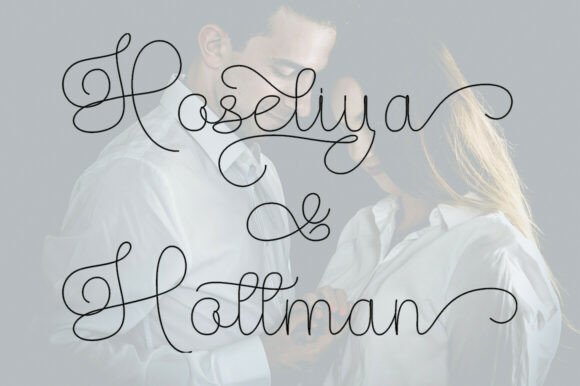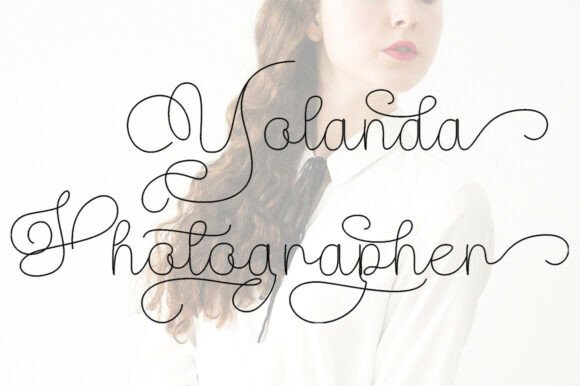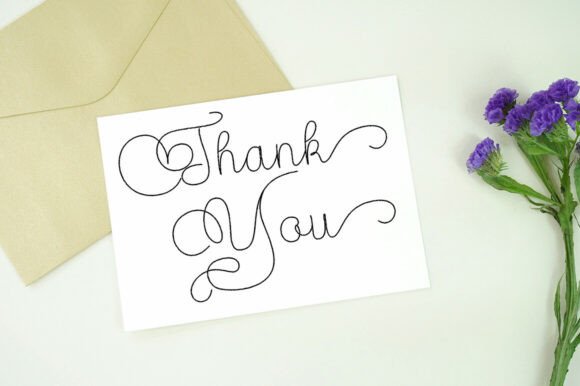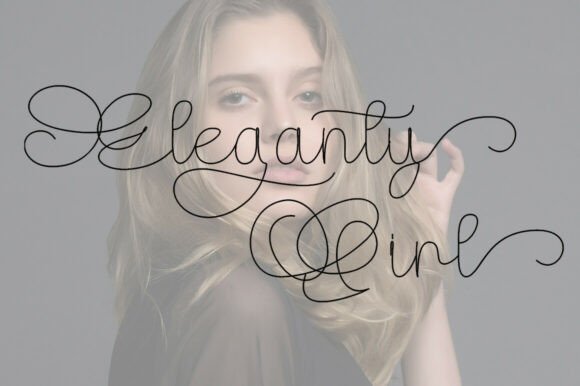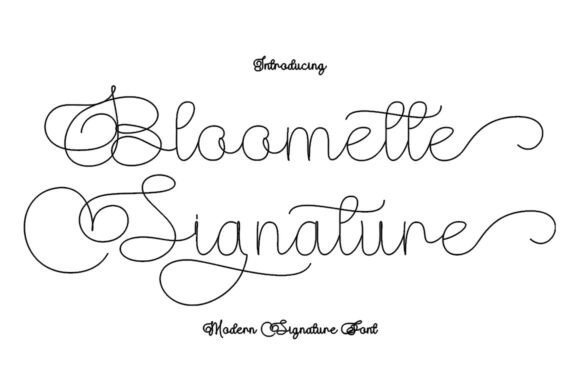
The Art of Handwritten Perfection: Introducing Bloomette Signature Font
There’s something magical about creating a beautiful handwritten piece that speaks directly to the heart. Remember that moment when you first started a journal, pouring your thoughts and dreams onto the page with a vibrant marker? Or perhaps you’re a designer who’s been searching for the perfect font to elevate your client’s wedding invitations?
Look no further, because Bloomette Signature Font is here to revolutionize your creative process. This stunning modern script font boasts an irregular base line, making it perfect for adding a touch of whimsy to your designs. With its elegant and flowing lines, Bloomette Signature Font is ideal for wedding invitations, thank you cards, quotes, and more.
As a designer, you know how crucial it is to have the right tools at your disposal. That’s why we’re excited to introduce Bloomette Signature Font, which includes initial and terminal letters, alternatives, and support for many languages. Get ready to take your designs to the next level with this gorgeous font!
Bloomette Signature Font Key Features
- Character Set: A comprehensive set of characters, including Latin, Cyrillic, and Greek alphabets, ensuring global compatibility.
- Unique Characteristics: Bloomette Signature Font features a unique blend of elegant and playful elements, with intricate details and subtle texture, making it perfect for adding a touch of sophistication and whimsy to designs.
- Font Style: A single font style with multiple weights and variations, offering flexibility and versatility for designers to create a range of visual effects and moods.
Bloomette Signature Font Review
As a designer, I was excited to dive into the Bloomette Signature Font. Here’s my honest review.
- Unique and elegant design – Bloomette Signature Font has a distinct aesthetic that sets it apart from other script fonts.
- High-quality glyphs – The font includes a wide range of characters, including ligatures and swashes, which add to its sophistication.
- Beautiful flourishes – The font’s decorative elements, such as the flowing loops and curls, are a joy to work with.
- Limited font sizes – While the font is stunning at larger sizes, it can become too ornate and difficult to read at smaller sizes.
- Not suitable for body text – Bloomette Signature Font is best used for headings, titles, or other design elements where its elegance can shine.
- Not as versatile as other fonts – The font’s unique design makes it less versatile than other fonts, limiting its applications.
Bloomette Signature Font is a beautiful, elegant script font that’s perfect for adding a touch of sophistication to your designs. While it has some limitations, its unique design and high-quality glyphs make it a valuable addition to any designer’s toolkit.
Tip: Use Bloomette Signature Font for creating eye-catching titles and headings in your designs.
Tip: Use Bloomette Signature Font for creating custom logos, business cards, and other print materials.
Tip: Use Bloomette Signature Font for creating professional-looking presentations and documents.
Bloomette Signature Font is ideal for:
- Creating custom logos and branding
- Designing business cards and letterheads
- Creating eye-catching titles and headings
- Adding a personal touch to presentations and documents